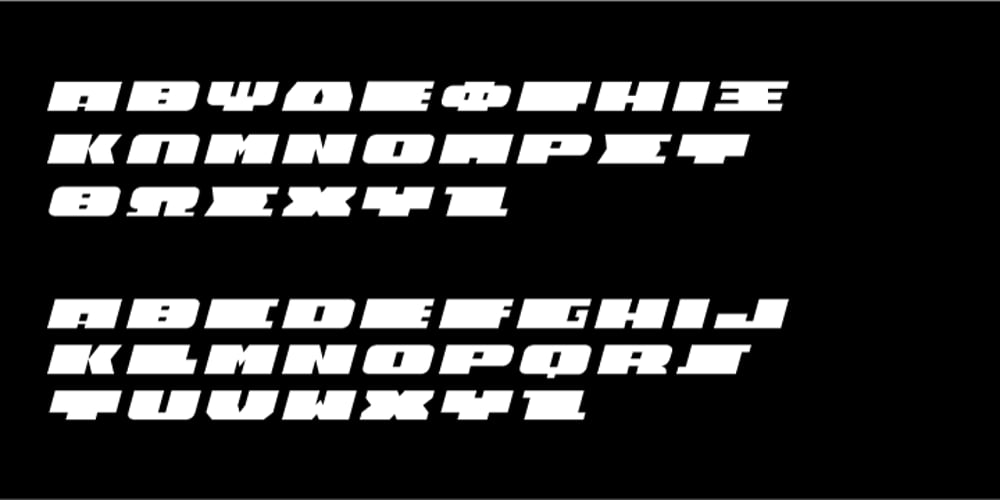
Alt Fat Font Family was designed by Andreas Leonidou and published by ALT. Alt Fat contains 2 styles and family package options. Do you like fat fonts? Well here is a free one from me. Regular & Italic both free. Fat is a caps only font. Because of that if you type something with caps on, as you can see is typing in Greek I decide to make it like this since there no lowercase letters.